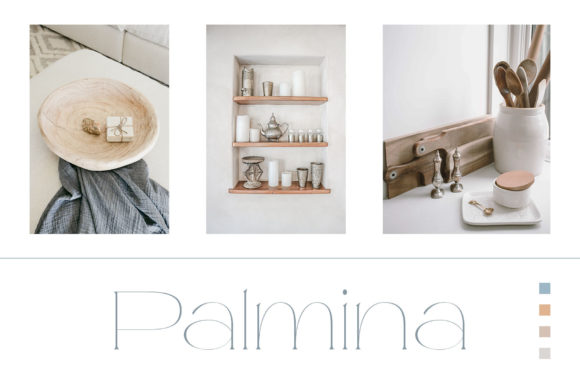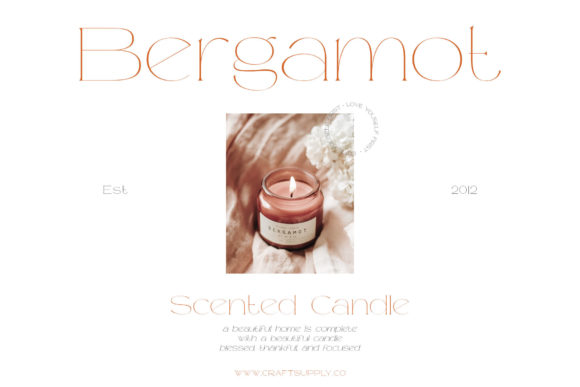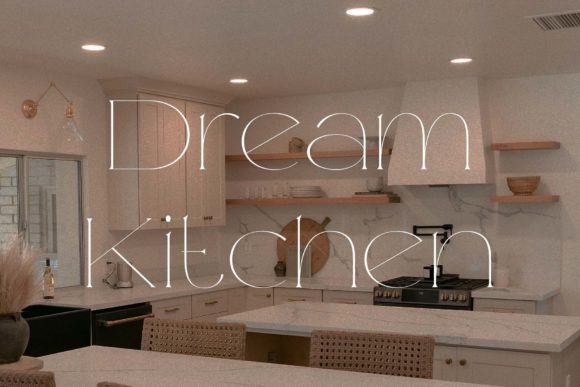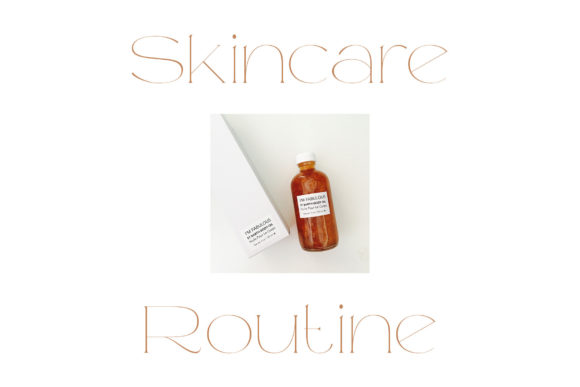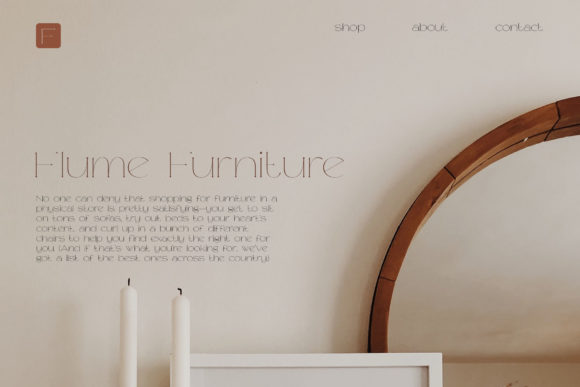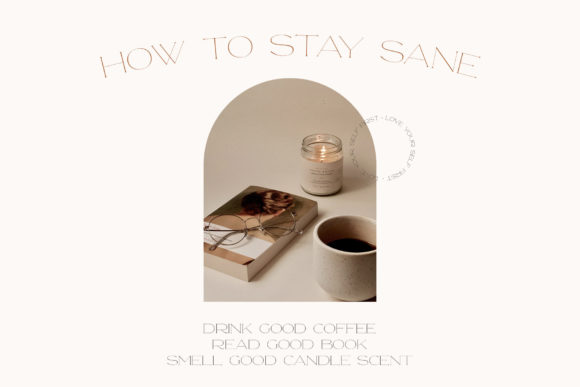
Introduction to Mileur Font
Mileur is a thin lettered and simple serif font.
It will look stunning on any poster, flyer or print Use this font for your designs and explore its endless possibilities.